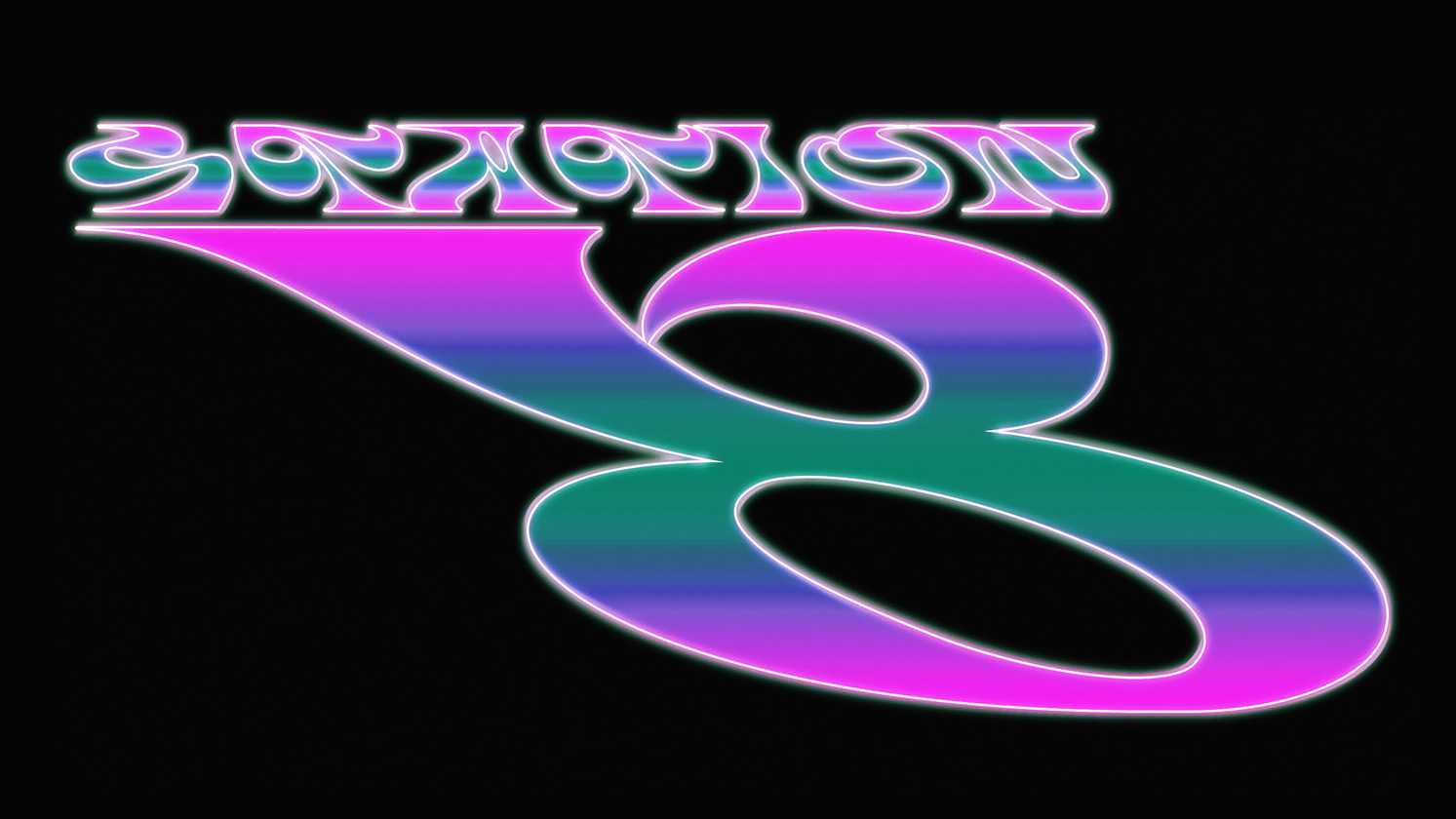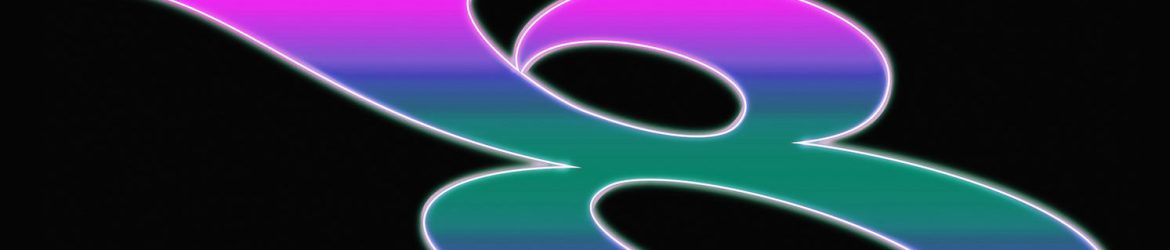
Download Furtive font, a funky aero dynamic typeface with flowing characters. Furtive font looks ideal for creative posters, eye-catching typography and other amazing artworks.
Designer: Cyril Kimmerlin